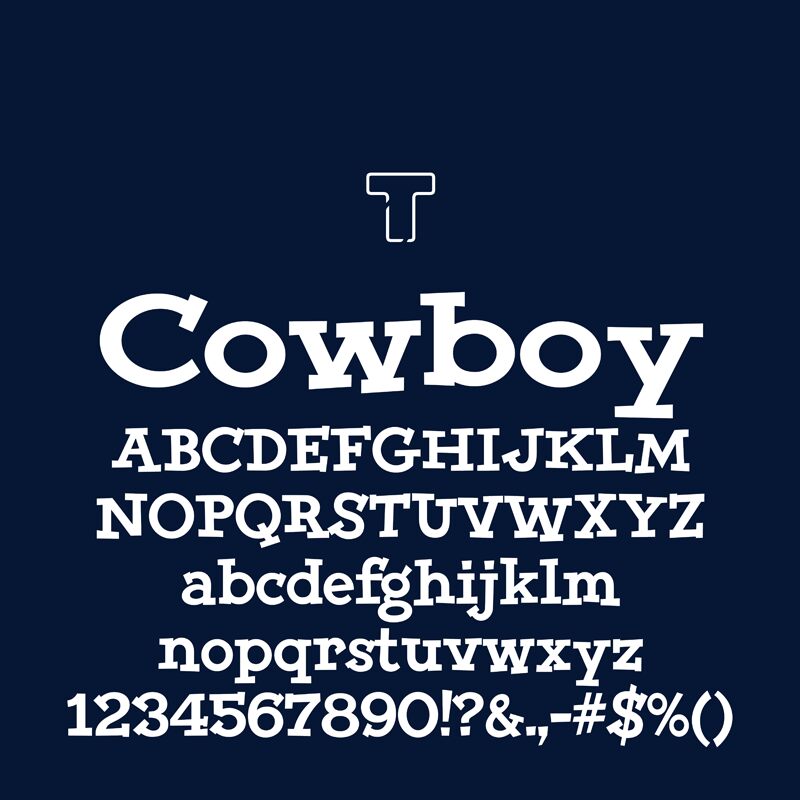
LT Cowboy Text Medium font by LyonsType is a free cartoon display typeface that revives the bouncy charm of the classic Yahoo-era lettering. Chunky, rounded forms and snug, friendly curves give it a cheerful, slightly retro energy, while the refined shapes keep it crisp instead of clumsy. Thanks to its generous ligatures and stylistic alternates, you can dial the personality up or down, from subtle whimsy to full-on playful.
Using LT Cowboy Text Medium, headlines feel like they’re spoken out loud, with a rhythmic, almost rubbery softness that’s hard to miss. This free font works beautifully for logos, kids’ book covers, fun brand wordmarks, posters, packaging, and YouTube or Twitch graphics. For longer supporting text, pair it with a clean geometric sans at smaller sizes so Cowboy can stay big, bold, and expressive where it belongs.